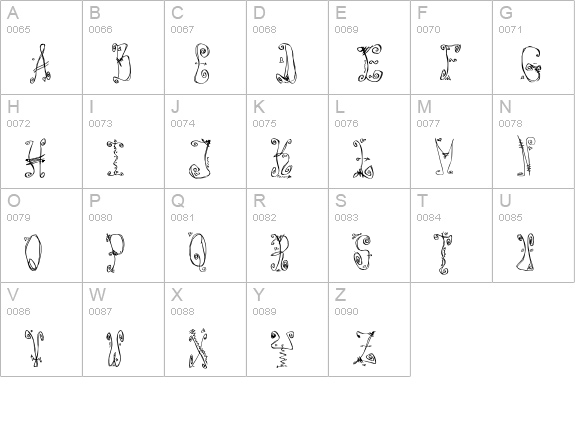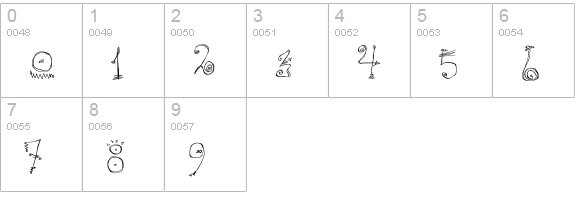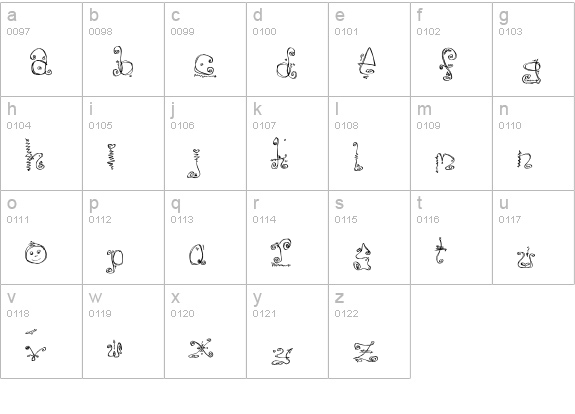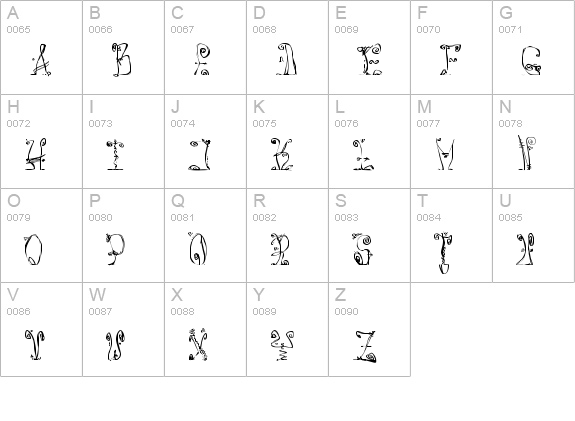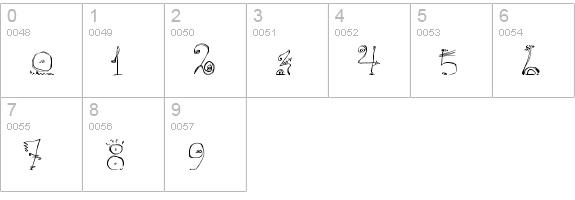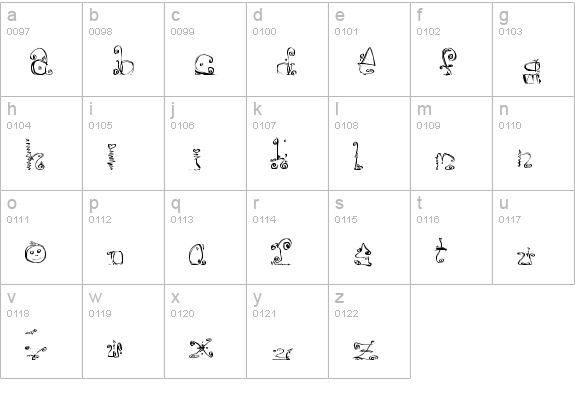
DanzinLikeCracy Font Details
DanzinLikeCracy font is a captivating and dynamic typeface that exudes creativity and uniqueness. Its intricate design features fluid lines and stylish curves that make every letter a work of art. This font is perfect for adding a touch of elegance and sophistication to any project, whether it's for branding, advertising, or design purposes. What sets DanzinLikeCracy font apart is not just its stunning aesthetics, but also the fact that it is completely free to use. That's right, this amazing font is freely available to download at FontsMarket.com, making it accessible to anyone looking to elevate their designs with a touch of class and flair. With DanzinLikeCracy font, you can unleash your creativity and bring your ideas to life in a way that truly stands out. Whether you're a graphic designer, a content creator, or just someone who appreciates beautiful typography, this font is sure to impress and inspire. So why wait? Download DanzinLikeCracy font now and let your creativity soar to new heights!